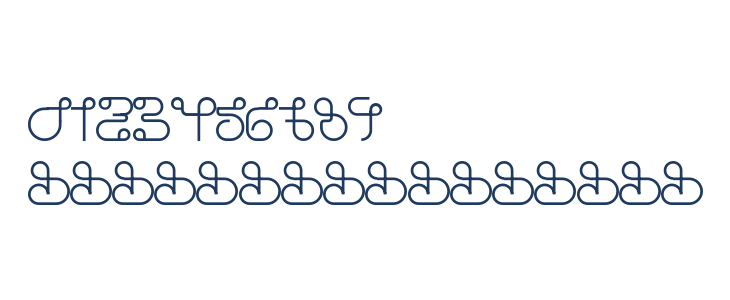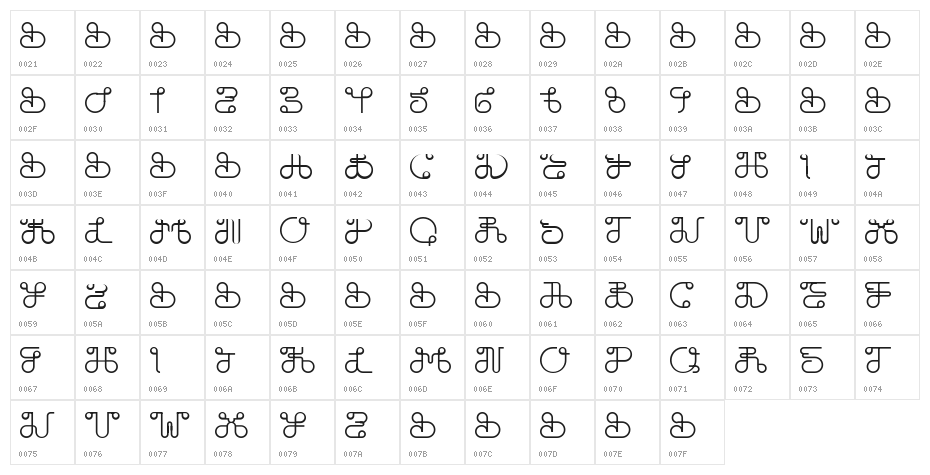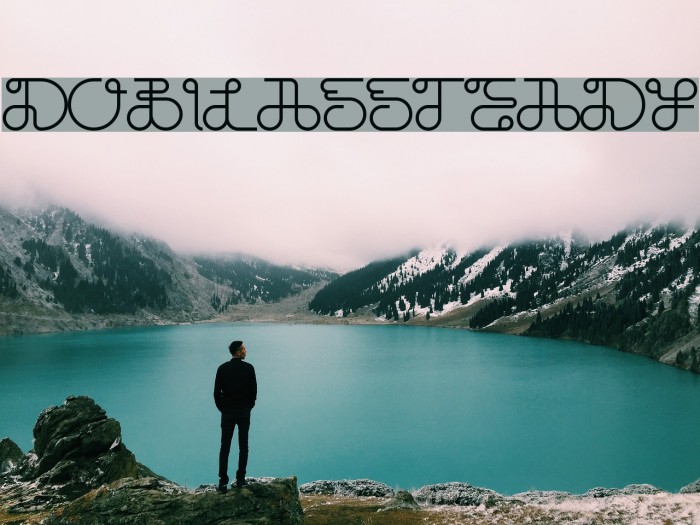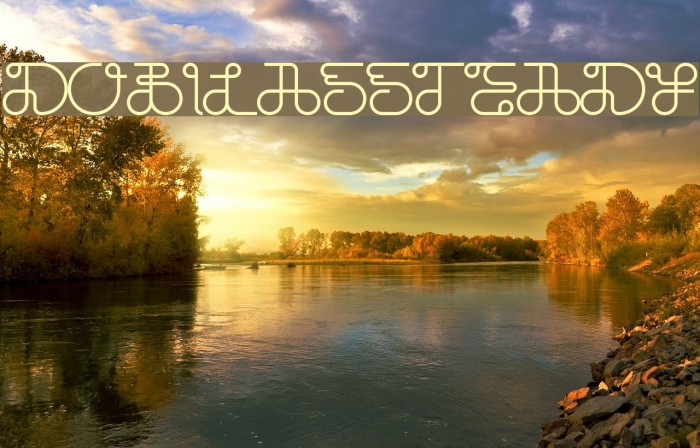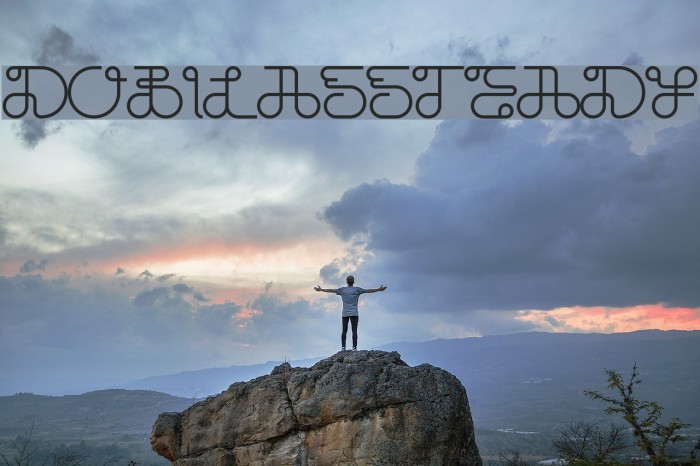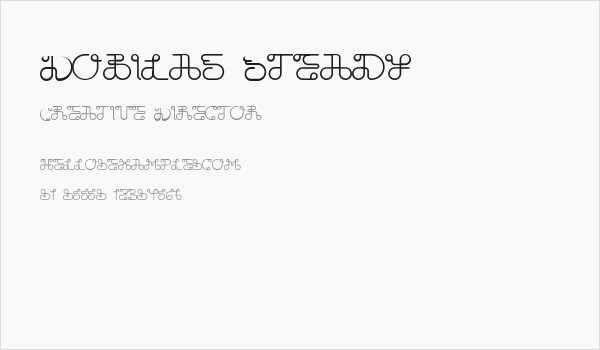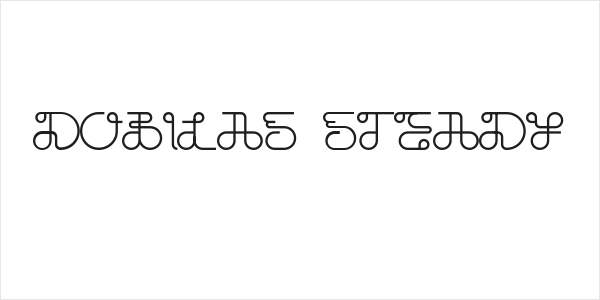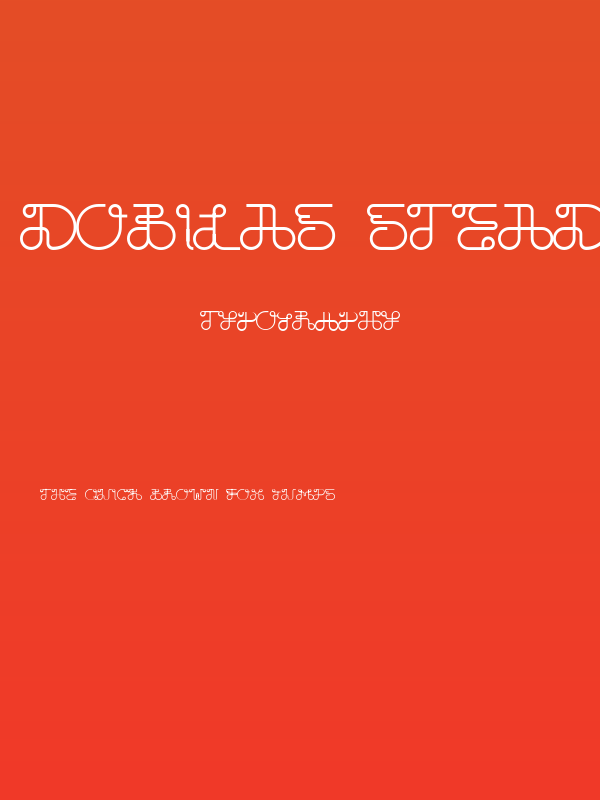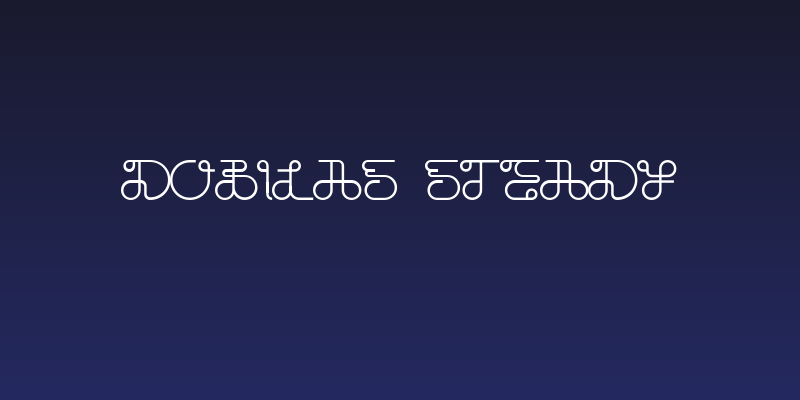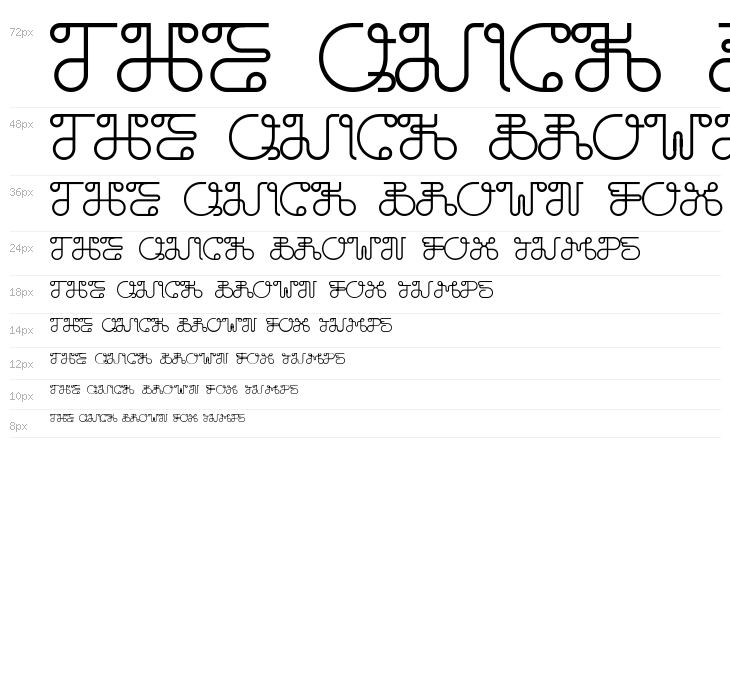
Dobilas Steady Font
Dobilas Steady Description
This font features a unique and decorative style with intricate loops and curves, giving it a playful yet sophisticated appearance. Each character is designed with a continuous line that forms elegant and whimsical shapes, making it stand out as a creative and artistic typeface. The font maintains a consistent line weight throughout, adding to its modern and clean aesthetic. Its distinctiveness lies in the way it combines geometric elements with fluid, organic forms, making it suitable for projects that require a touch of creativity and flair.
| Use Case | Logos, Posters, Invitations |
| Proposed Projects | Ideal for creative projects such as logos, posters, invitations, and branding materials where a unique and artistic touch is desired. |